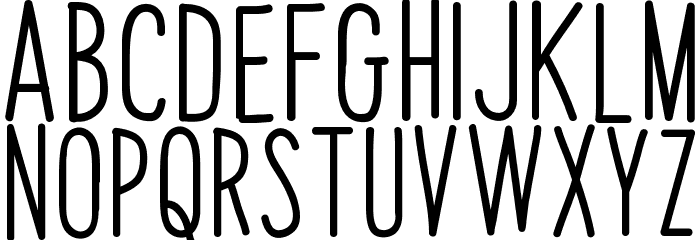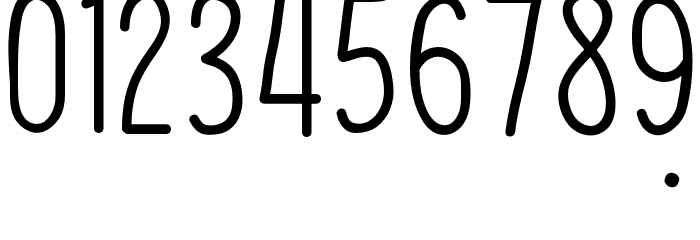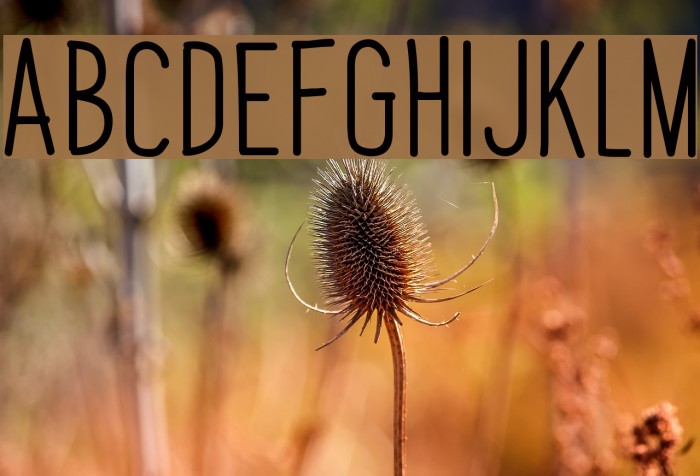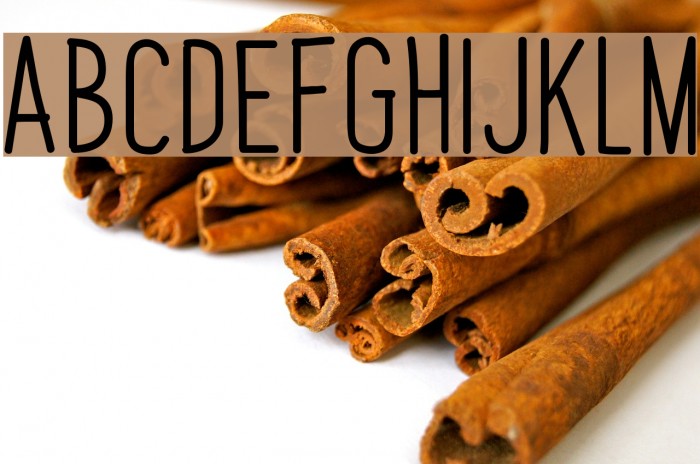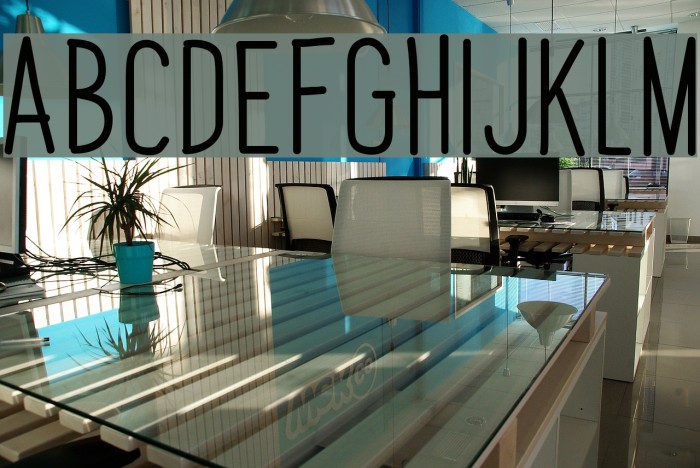
Papaya Sunrise Font
This font features a playful and rounded design with a modern touch. The characters are tall and slender, giving a sense of elegance and sophistication. The rounded edges soften the overall appearance, making it approachable and friendly. The uniform stroke width provides a clean and consistent look, while the slight variations in character shapes add a unique charm. The font is versatile, suitable for both digital and print media, and can be used to convey a sense of warmth and creativity.
A playful, rounded font with a modern and elegant design.
- Proposed Projects: Ideal for branding, packaging, children's books, and creative projects.
- Use Case: Headlines, Logos, Packaging